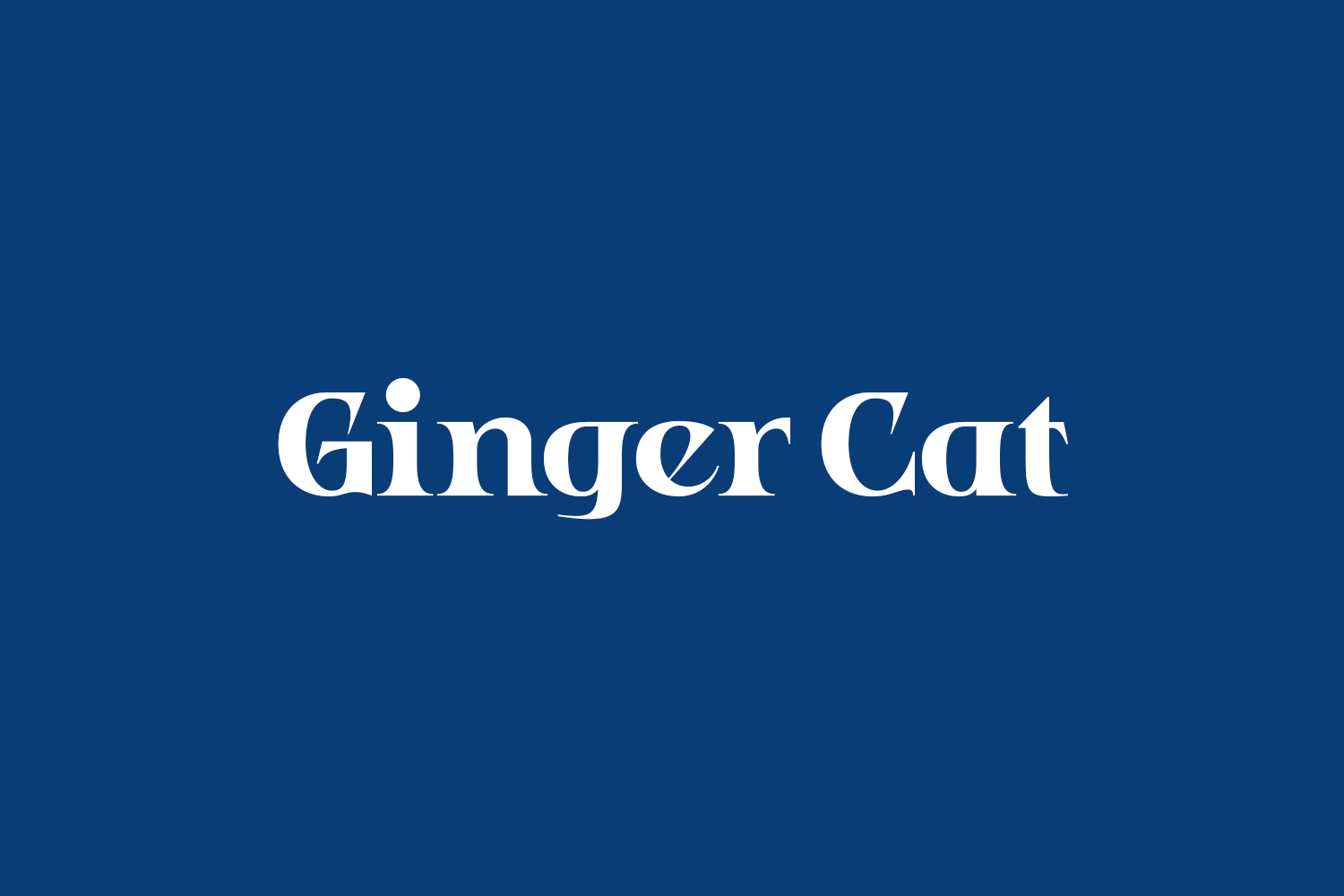
Introducing Ginger Cat Free Font, a charmingly modern display font tailored for a range of projects such as posters, logos, magazines, book covers, banners, and beyond! Elevate your designs with this delightful font and witness how it effortlessly enhances your creative endeavors. Its versatility seamlessly complements a vast array of projects, ensuring your ideas shine with distinction. Don’t miss out on the opportunity to incorporate Ginger Cat into your imaginative pursuits. Download the font for free if you need it for personal use or purchase the full version for commercial use.